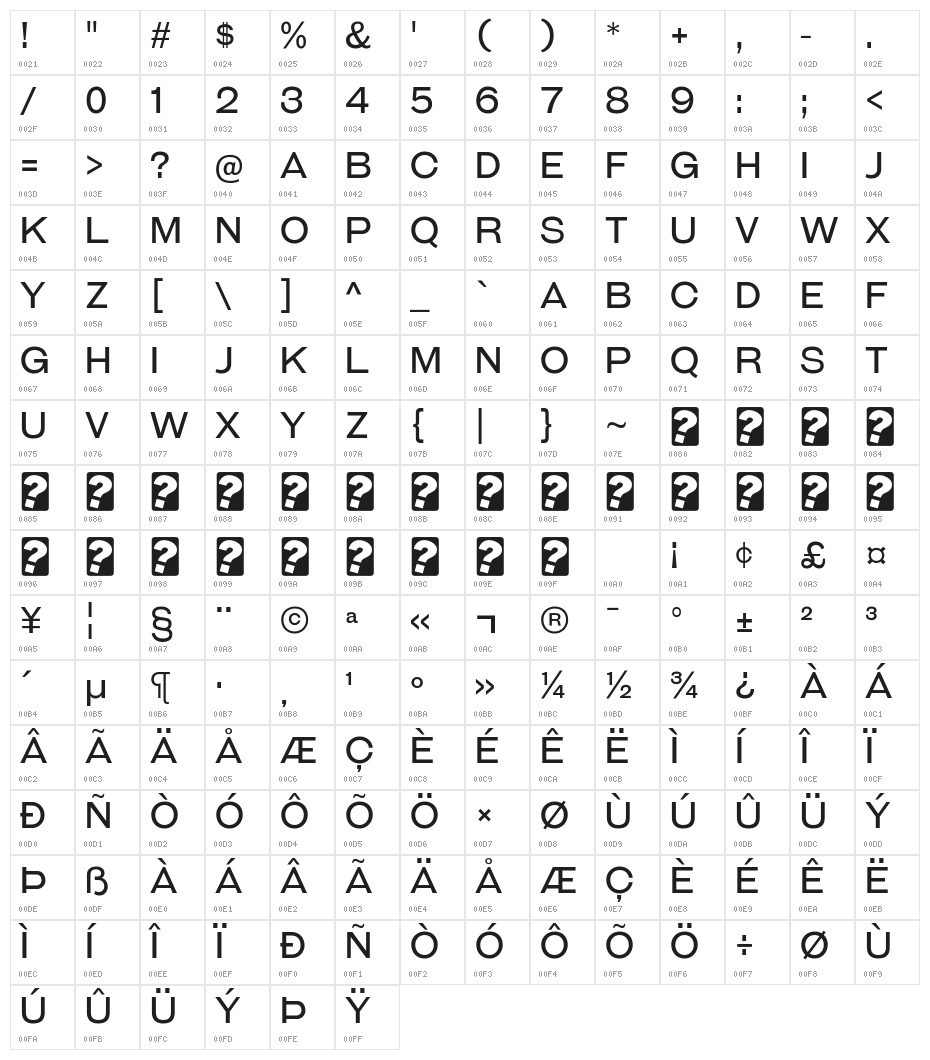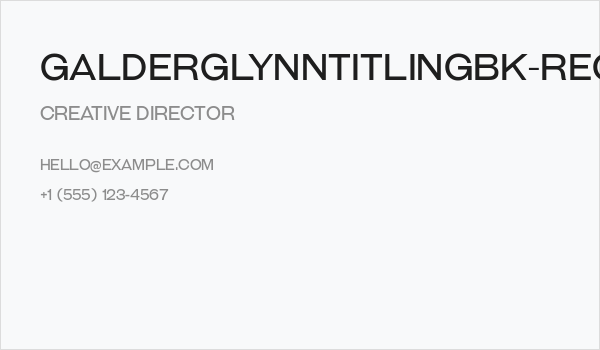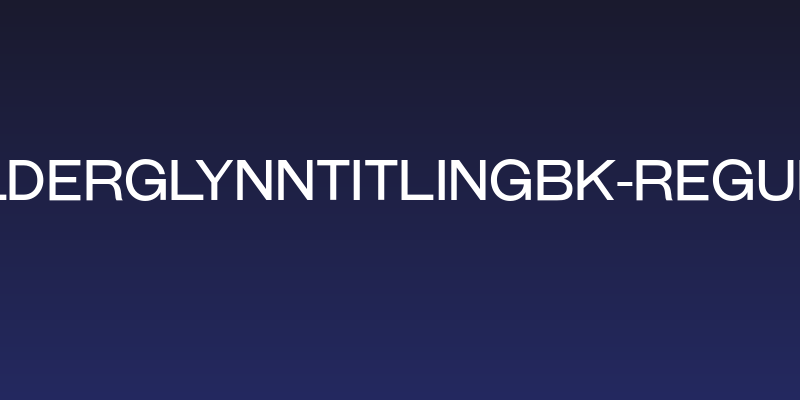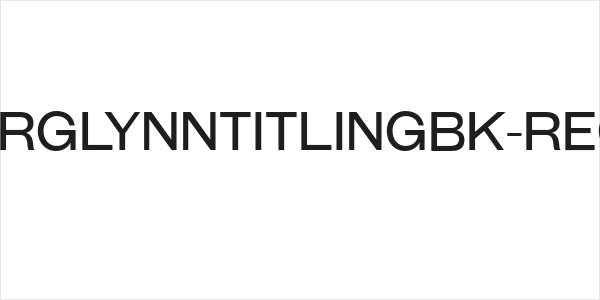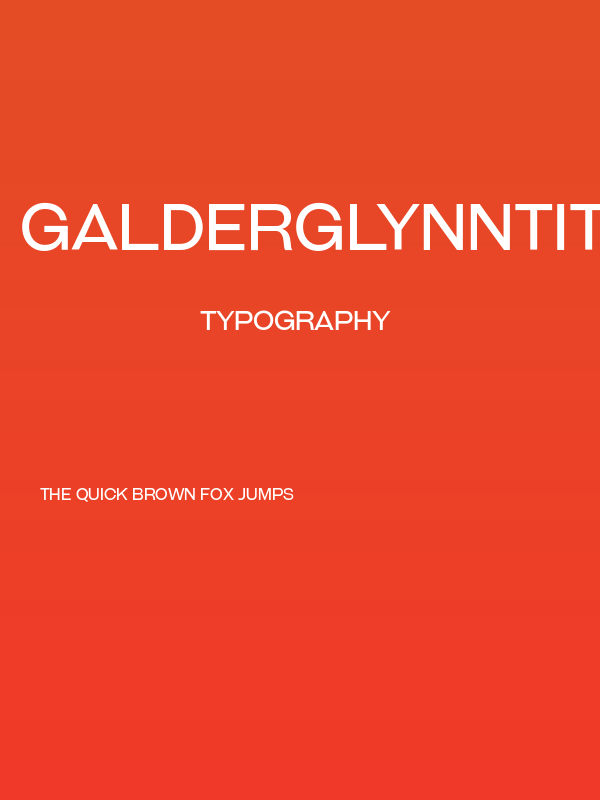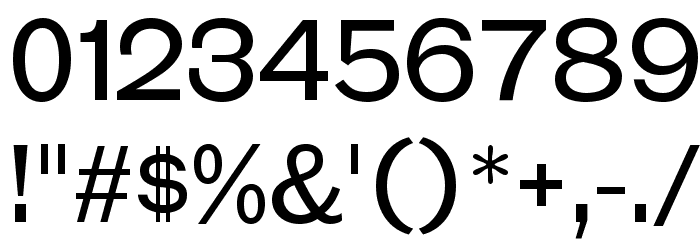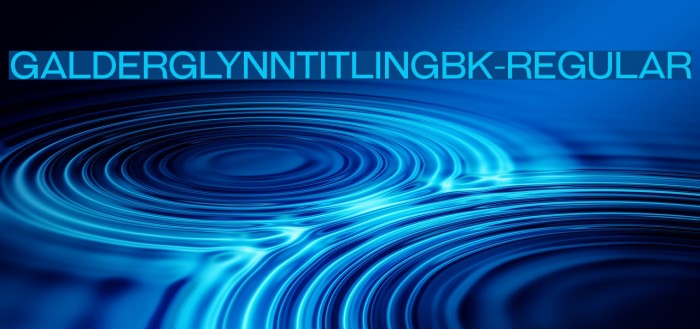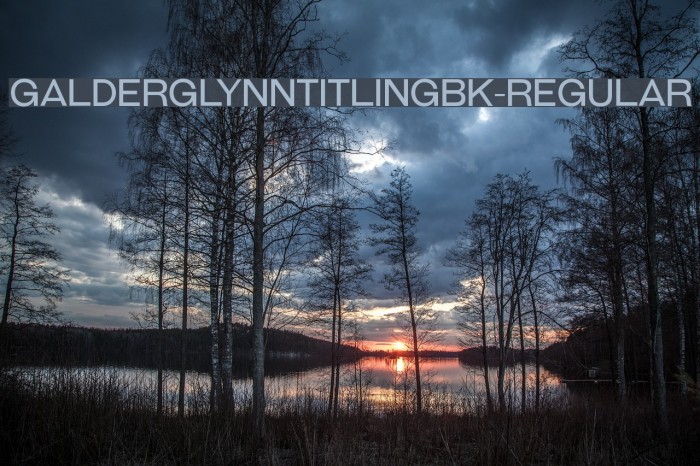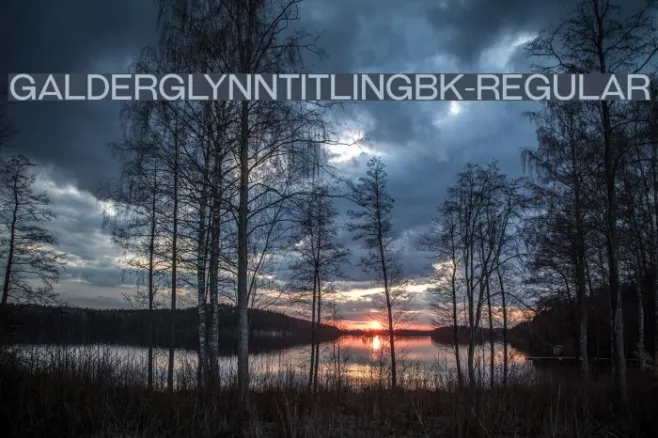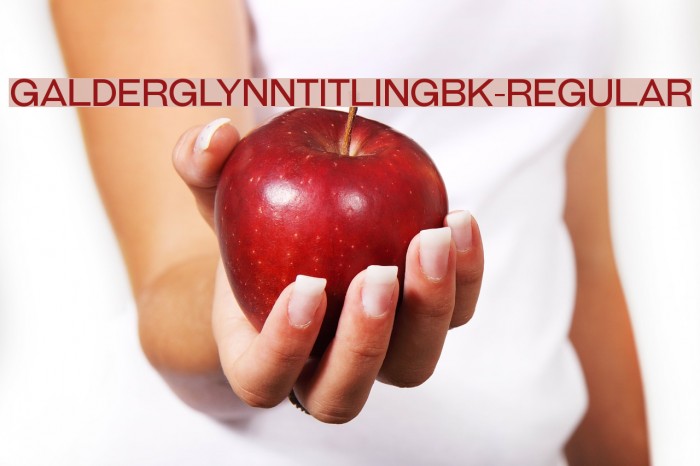
GalderglynnTitlingBk-Regular Font
GalderglynnTitlingBk-Regular Description
This font features a clean and modern sans-serif design with a geometric structure. The characters are uniform in width, providing a balanced and harmonious appearance. The uppercase letters are bold and impactful, making them suitable for headlines and titles. The lowercase letters maintain the same geometric style, ensuring readability and consistency. The numerals are clear and distinct, with a slightly wider stance that enhances legibility. Special characters are well-defined, adding versatility to the font's use. Overall, this font exudes a contemporary and professional feel, ideal for various design applications.
| Use Case | Headlines, Logos, Branding |
| Proposed Projects | Ideal for branding, corporate design, advertising, and editorial projects. |